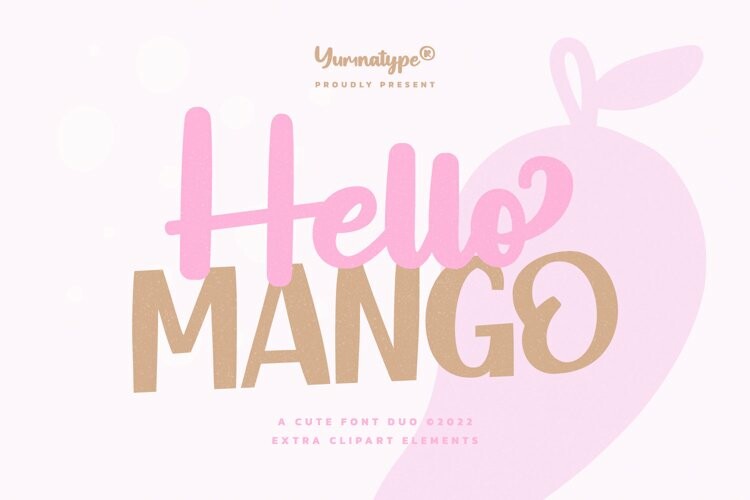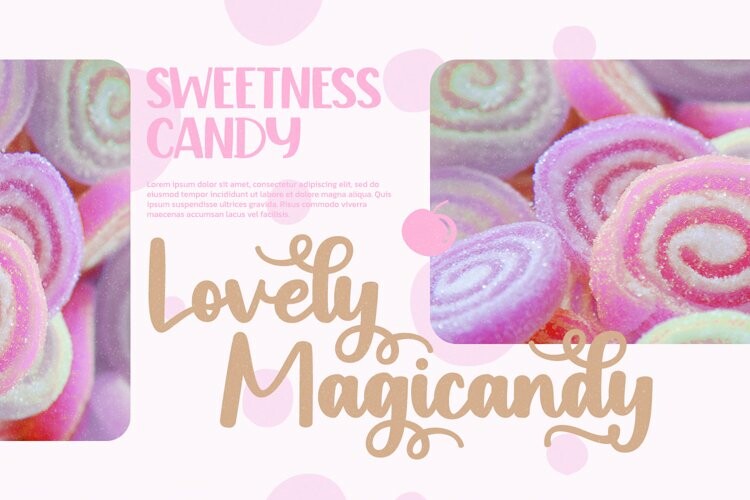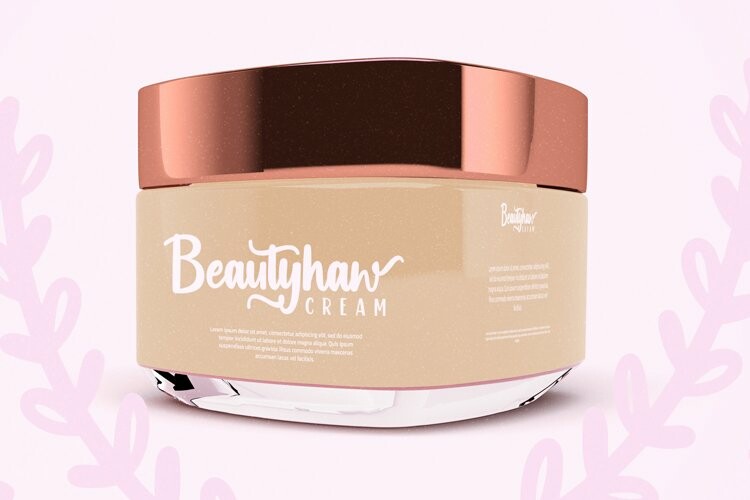
Hello Mango Duo Font
Hello Mango Duo FontNeed that perfect statement fonts for your designs? Hello Mango knows how to make your designs go from good to be ultra good.
It is harmonious uppercase display and script font duo. The display font is beautifully designed and add a distinctive touch wherever they are used. On the other hand, the script style expresses elegant and modern look. In this package, you can also get 15 illustrations as special extra.